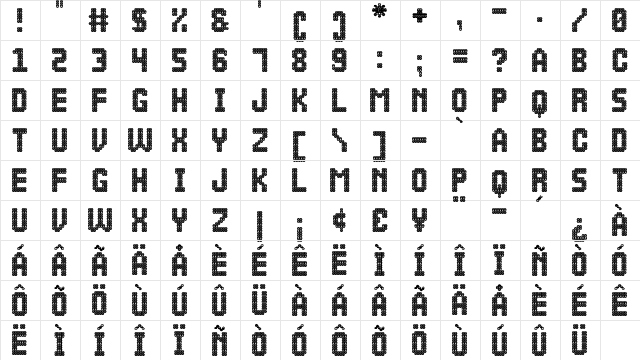
Mala Vida St Regular
Design Context for Mala Vida St Typeface
Mala Vida St is a composed and adaptable typeface that performs quietly and consistently across a wide range of design contexts.